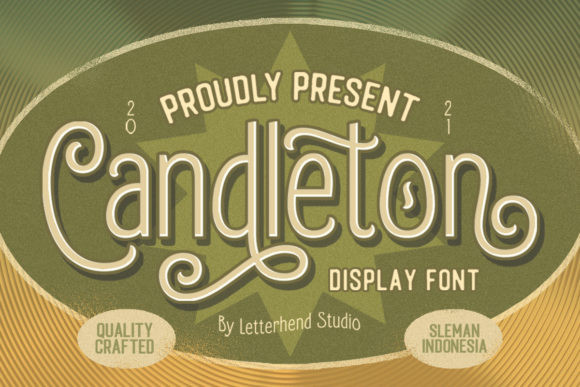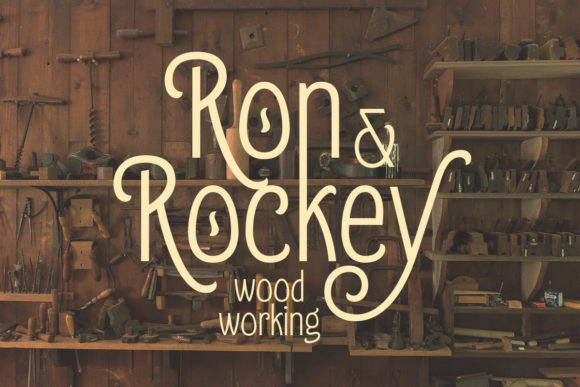
Candleton Font
Candleton is an elegant, retro styled and light display font. It is defined by smooth curves and is perfect for fashion branding or editorial designs. Add it confidently to your projects, and you will love the results.